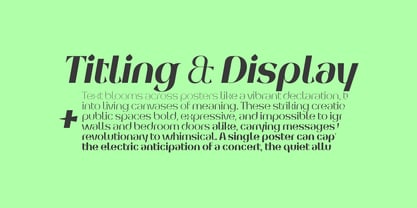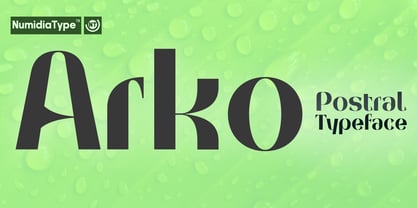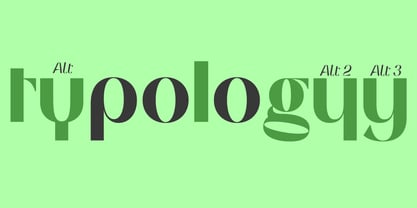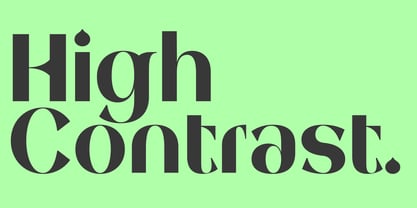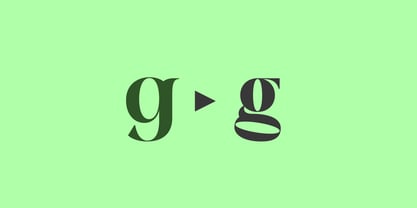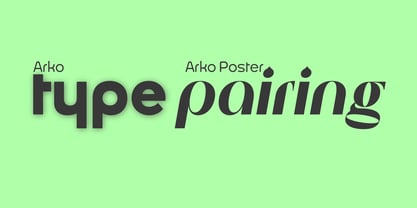
Arko Poster
by NumidiaType
The Arko Poster Font Family was designed by Yassine Abdi and published by NumidiaType. Arko Poster contains 14 styles and family package options. More about this family
Arko™ Poster is a modern sans serif typeface designed to make a bold statement. With its high contrast structure and clean, aesthetic appeal, this font is ideal for contemporary design projects that demand attention. Featuring seven distinct weights and 14 unique styles, Arko Poster is versatile enough to handle everything from logotypes and branding to packaging and mockups. Its striking design enhances both readability and visual impact, making it perfect for professional use across a wide range of applications. Crafted with many features, Arko Poster includes alternative glyphs and a variety of stylistic options to ensure flexibility in your design process. Whether you're looking to create elegant italicized text or strong, attention grabbing headlines, this font adapts to every need. With its clean lines and sophisticated structure, Arko Poster is an excellent choice for designers seeking a polished, modern typeface for their projects.
Designers: Yassine Abdi
Foundry: NumidiaType